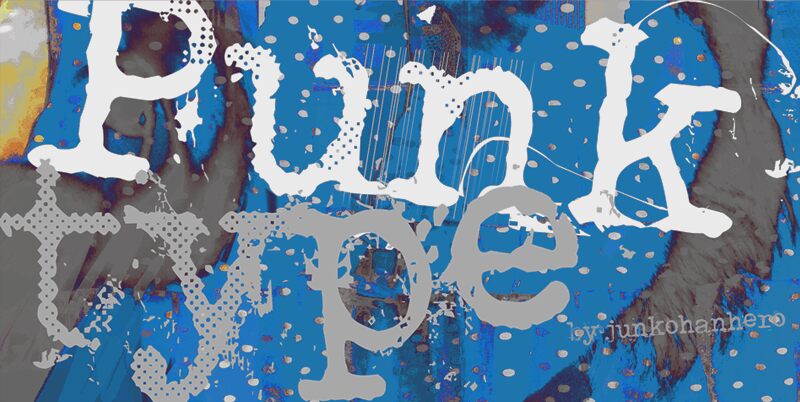
Punktype
Punktype is a captivating display font that exudes a raw, distorted aesthetic. Designed by junkohanhero, this typeface boasts a striking, irregular silhouette that immediately commands attention.
The irregular letterforms, with their jagged edges and uneven textures, evoke a sense of grittiness and imperfection, making Punktype an ideal choice for edgy branding, punk-inspired designs, and grungy editorial layouts. Its unique character lends itself well to creating bold visual statements, amplifying the impact of headlines, titles, and key typographic elements.
Punktype's distinct personality makes it a versatile tool for designers seeking to infuse their work with a touch of subversive, unconventional flair.